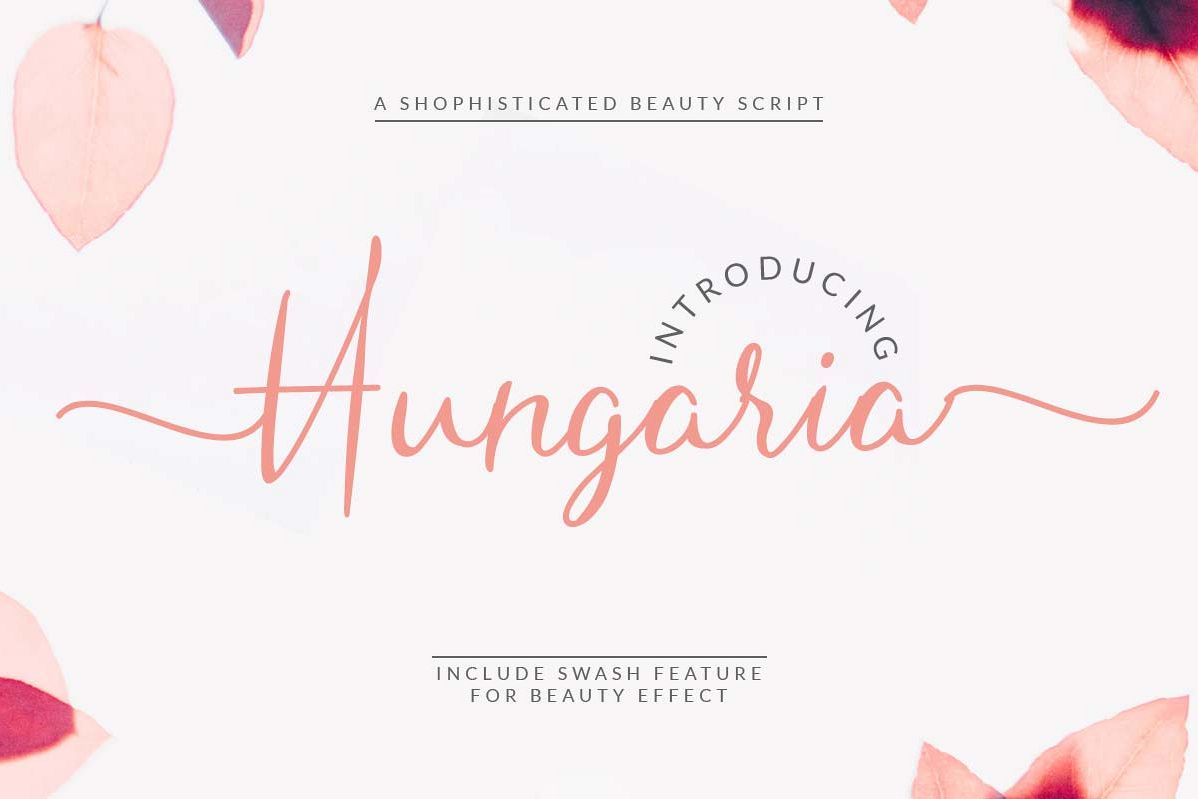
Hungaria - Sophisticated Script Font
The Hungaria is a beautiful script font which was carefully created for beauty brands. It can also be used for every designs which needs a feminine and elegant touch.
It also Add Feature end swash to add more beauty touch on it, see the image preview to use and add it.